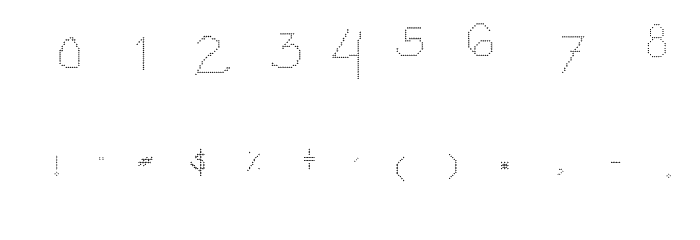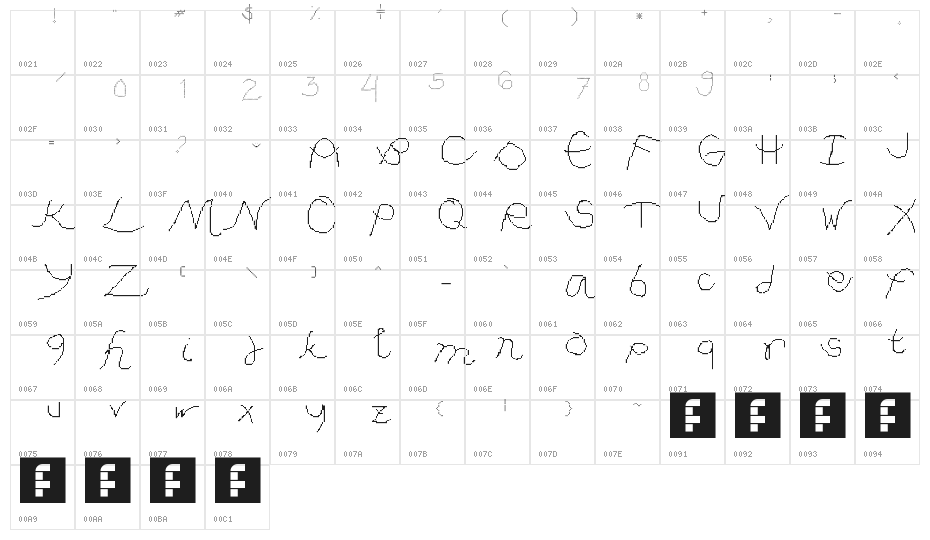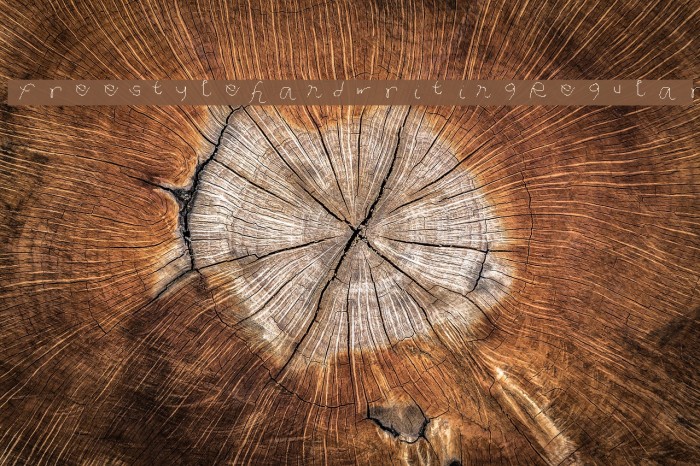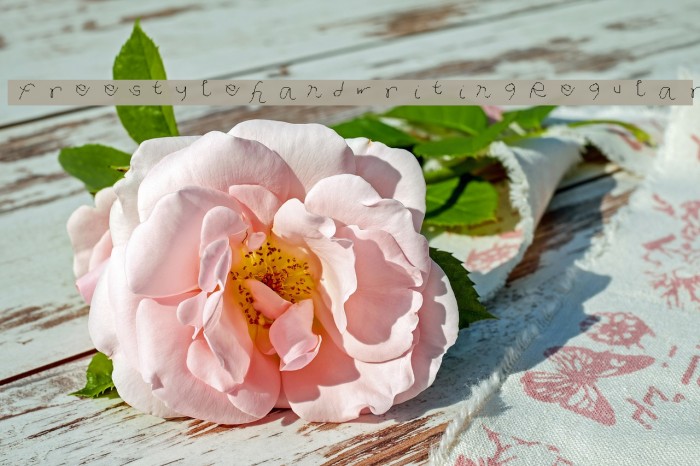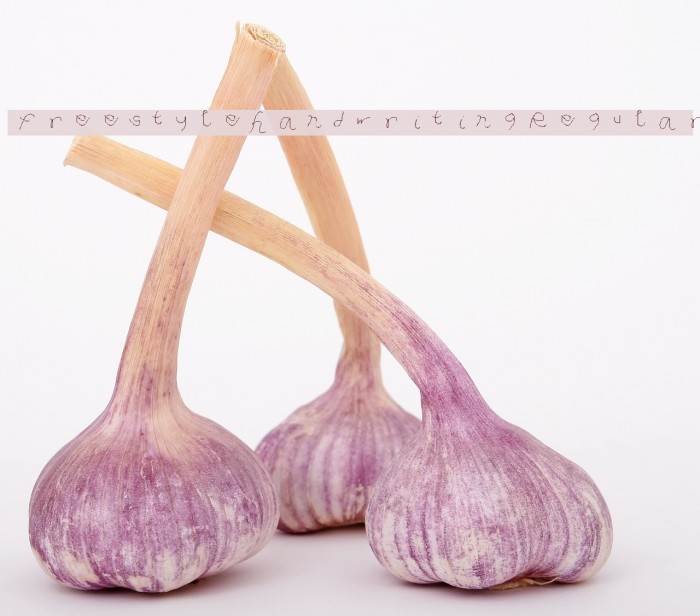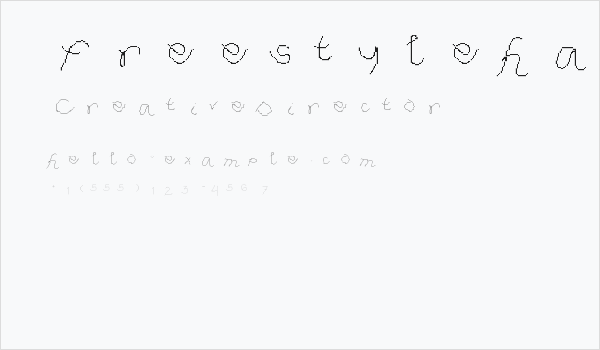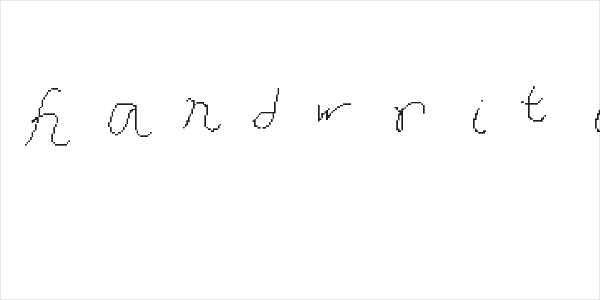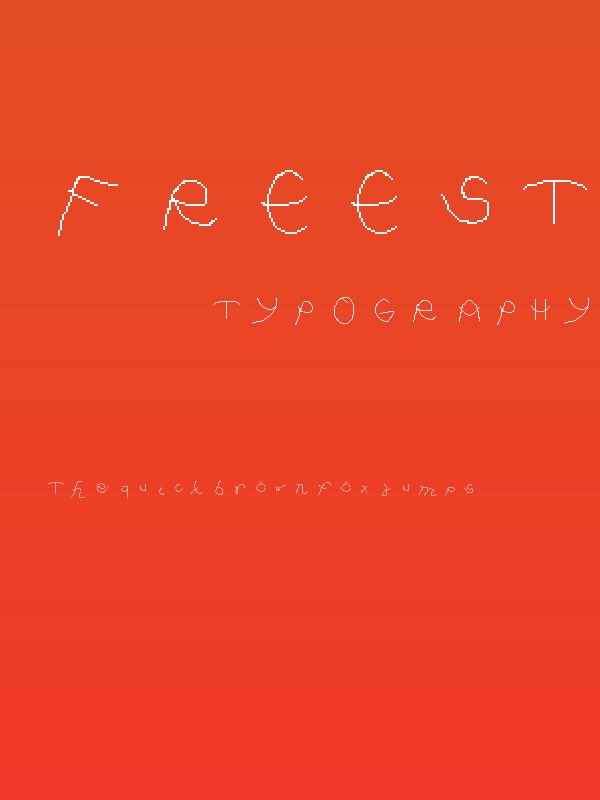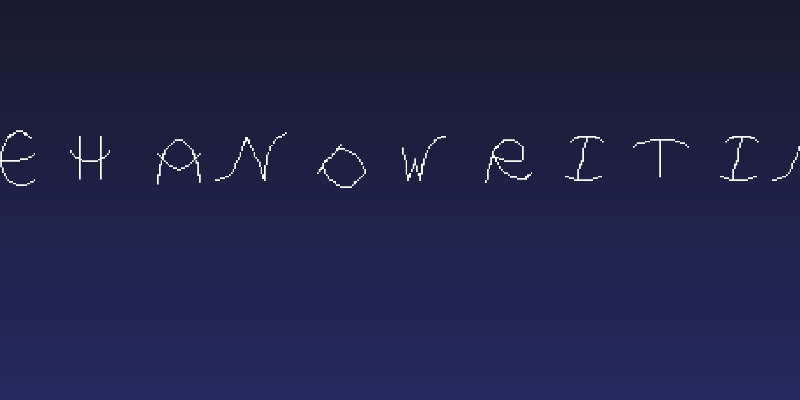
freestyle handwriting Regular Font
freestyle handwriting Regular Description
This font features a casual, handwritten style that mimics the fluidity and spontaneity of natural handwriting. The letters are slightly irregular, adding a personal and informal touch to the text. The strokes are thin and delicate, with a consistent flow that connects some of the letters, enhancing the handwritten feel. The overall appearance is light and airy, making it suitable for conveying a relaxed and approachable tone. The numerals and special characters maintain the same handwritten aesthetic, ensuring a cohesive look across all text elements.
| Overall Style | Casual, Informal |
| Use Case | Greeting cards, Personal notes, Informal branding |
| Proposed Projects | Ideal for personal notes, invitations, greeting cards, and informal branding projects. |